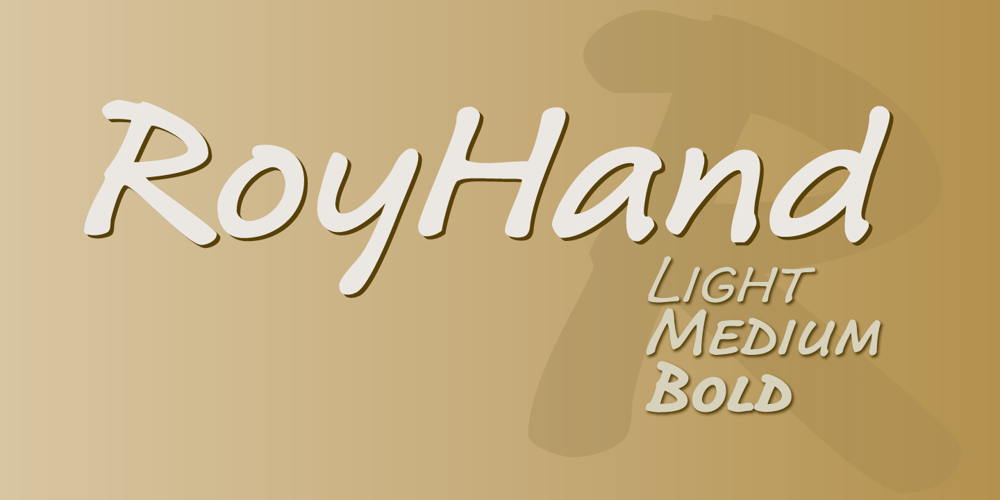
RoyHand RP
RoyHand RP font
RoyHand RP Font Family was designed by Roy Preston and published by BluHead Studio. RoyHand RP contains 3 styles and family package options. RoyHand is a font family by Roy Preston. As the name would suggest, it is based upon the handwriting of Roy himself. The family has three weights, Light, Medium and Bold, and is suitable for many everyday uses. Each font has smallcaps, as well as oldstyle, proportional and tabular lining figures. The extended character set supports many western European languages.